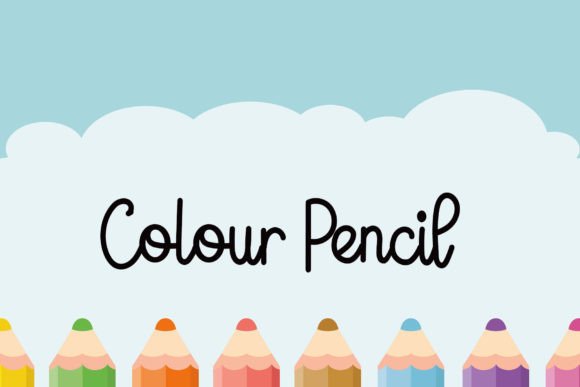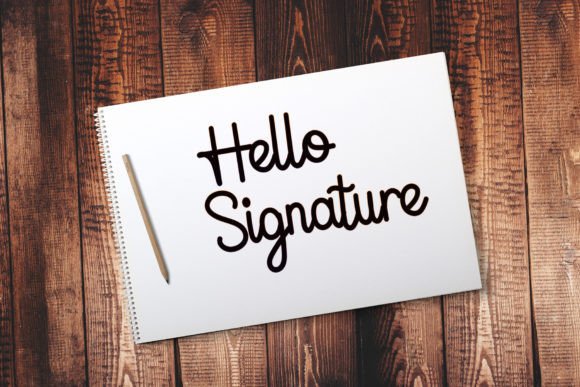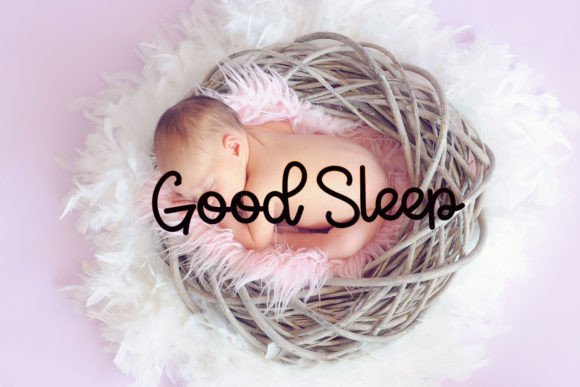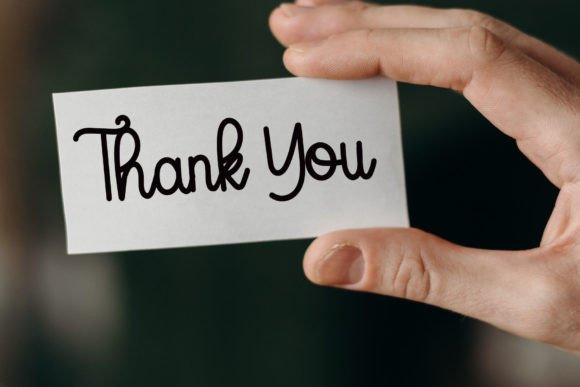
The Delight Font: A Beautifully Flowing Handwritten Typeface
Have you ever been working on a project, pouring your heart and soul into every detail, only to get stuck on one thing: the font? I remember a particularly frustrating experience when I was designing a wedding invitation suite. My client wanted a romantic, whimsical feel, but I just couldn’t find the right font to match their vision. That’s when I stumbled upon the Delight font, and it was love at first sight! 💕
A Personal Review of Delight Font
I’m excited to share my honest review of the Delight font, and I hope it will help you decide if it’s the perfect fit for your next project.
What I Love About Delight Font
- ✨ Beautifully flowing script: Delight font has a mesmerizing, handwritten quality that adds a touch of elegance to any design.
- ✅ Versatile: This font is perfect for a wide range of applications, from greeting cards and wedding invitations to headlines and branding.
- 💕 Romantic feel: Delight font has a way of evoking emotions and adding a touch of whimsy to your designs.
- 🎨 Highly customizable: With its extensive range of OpenType features, glyphs, and stylistic alternates, you can experiment with different styles to suit your project’s needs.
While Delight font is an amazing typeface, there are a few things to keep in mind:
- 🤔 Legibility at small sizes: Like many script fonts, Delight can be a bit tricky to read at very small sizes. Make sure to test it in your design and adjust as needed.
- ⚠️ Kerning issues: Some users have reported kerning issues when using Delight in certain design software. However, these can usually be easily fixed by adjusting the kerning manually.
The Story Behind Delight Font
Delight font was created by a talented type designer who wanted to craft a font that would evoke emotions and add a touch of romance to designs. Inspired by the flowing scripts of the past, the designer poured their heart and soul into creating a font that would be both beautiful and versatile.
| Is Delight font suitable for body text? | While Delight font is beautiful, it’s not ideal for long blocks of body text. Its elegant, flowing script is better suited for headlines, titles, and short paragraphs. |